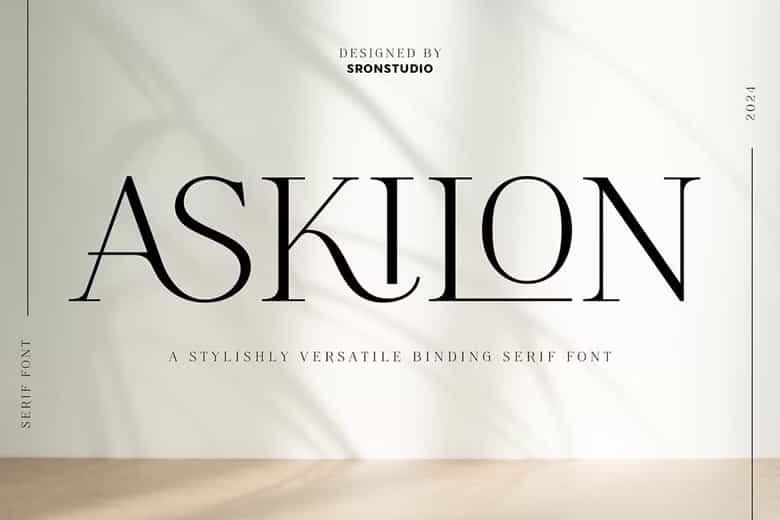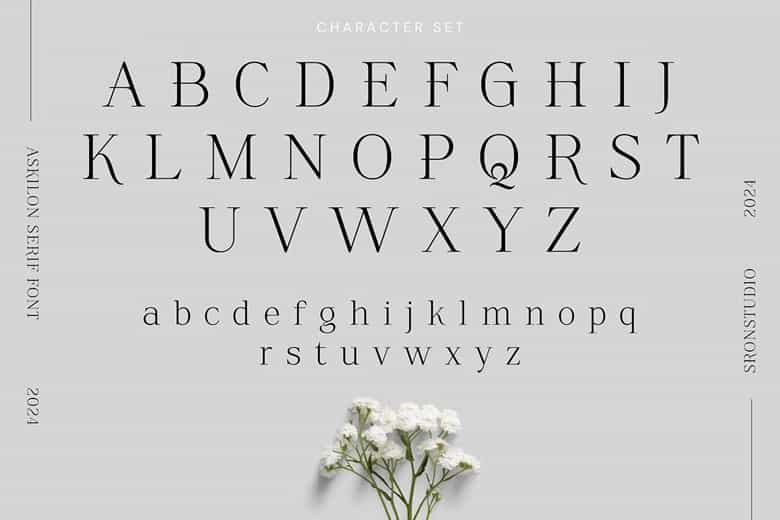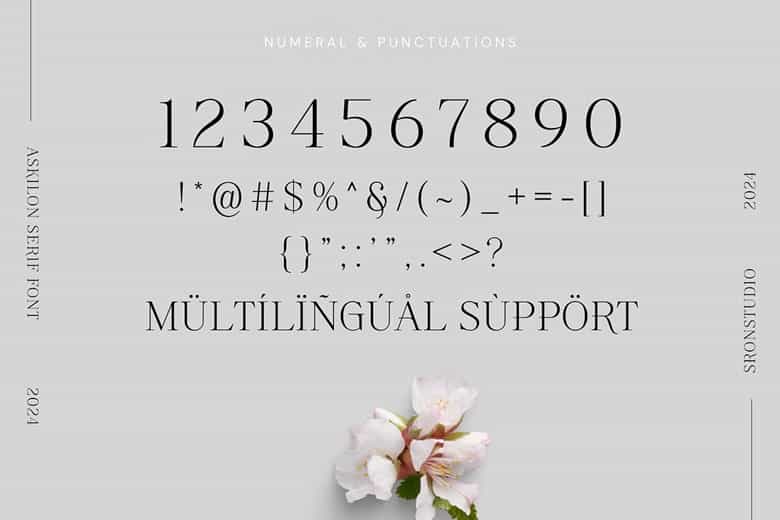
Askilon is a stylish versatile binding serif typeface that oozes style and class. Due to the elegant shapes and fine elements of the design, it will be ideal for luxury logos, magazines, and premium product boxes.